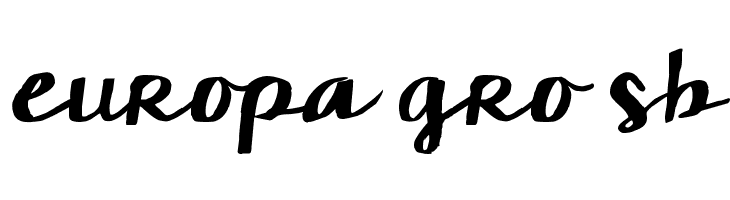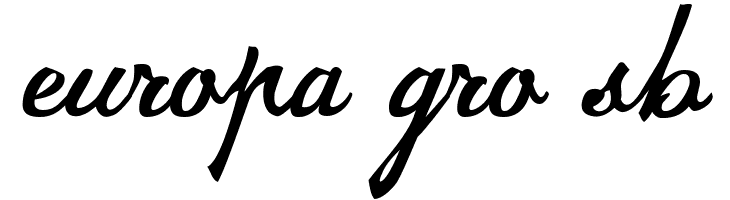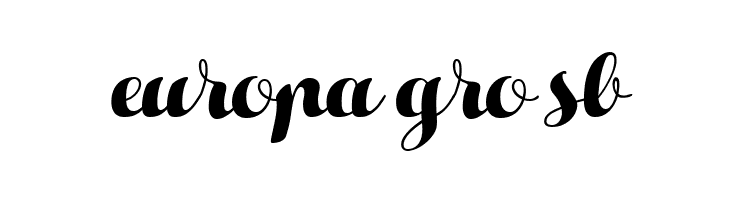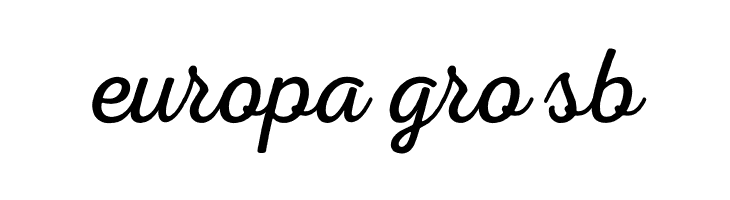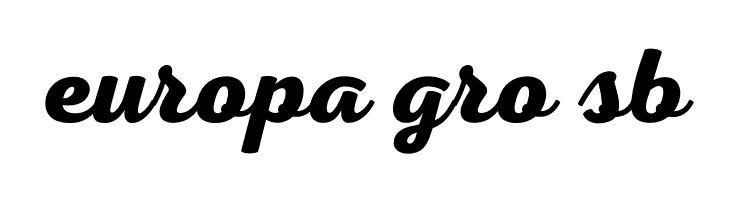
A bold, energetic script font with a hand-drawn, artistic style.
A bold, flowing script font with a handwritten, marker-like appearance.
An elegant script font with intricate, flowing lines and graceful curves.
An elegant script font with intricate swirls and loops, reminiscent of calligraphy.
A playful and whimsical script font with flowing, interconnected letterforms.
A bold, expressive script font with a dynamic, hand-drawn style.
A sophisticated script font with elegant swashes and flowing cursive letterforms.
A bold, playful script font with smooth, rounded letterforms.
A playful and elegant script font with flowing, cursive letterforms and decorative details.
A lively and dynamic script font with fluid, connected letterforms.
An elegant and decorative script font with ornate swashes.
An elegant script font with intricate swashes and high contrast, perfect for formal designs.
A whimsical and elegant script font with flowing, cursive letters and intricate loops.
A graceful script font with elegant swirls and loops, perfect for sophisticated designs.
A bold, flowing script font with interconnected characters and a cursive style.
A casual, cursive script font with a friendly and handwritten style.
A bold, cursive script font with a playful and dynamic style.
A playful, hand-drawn script font with fluid, connected characters.
A dynamic, cursive script font with bold, fluid strokes.
An intricate, decorative script with flowing curves and mystical appeal.
A bold, fluid script font with interconnected letters and expressive strokes.
A dynamic script font with a rough, brush-like texture and flowing cursive style.
A graceful, cursive script font with a natural handwritten style.
An elegant script font with flowing, ornate letterforms and intricate swashes.
An elegant script font with intricate loops and swashes, ideal for formal designs.